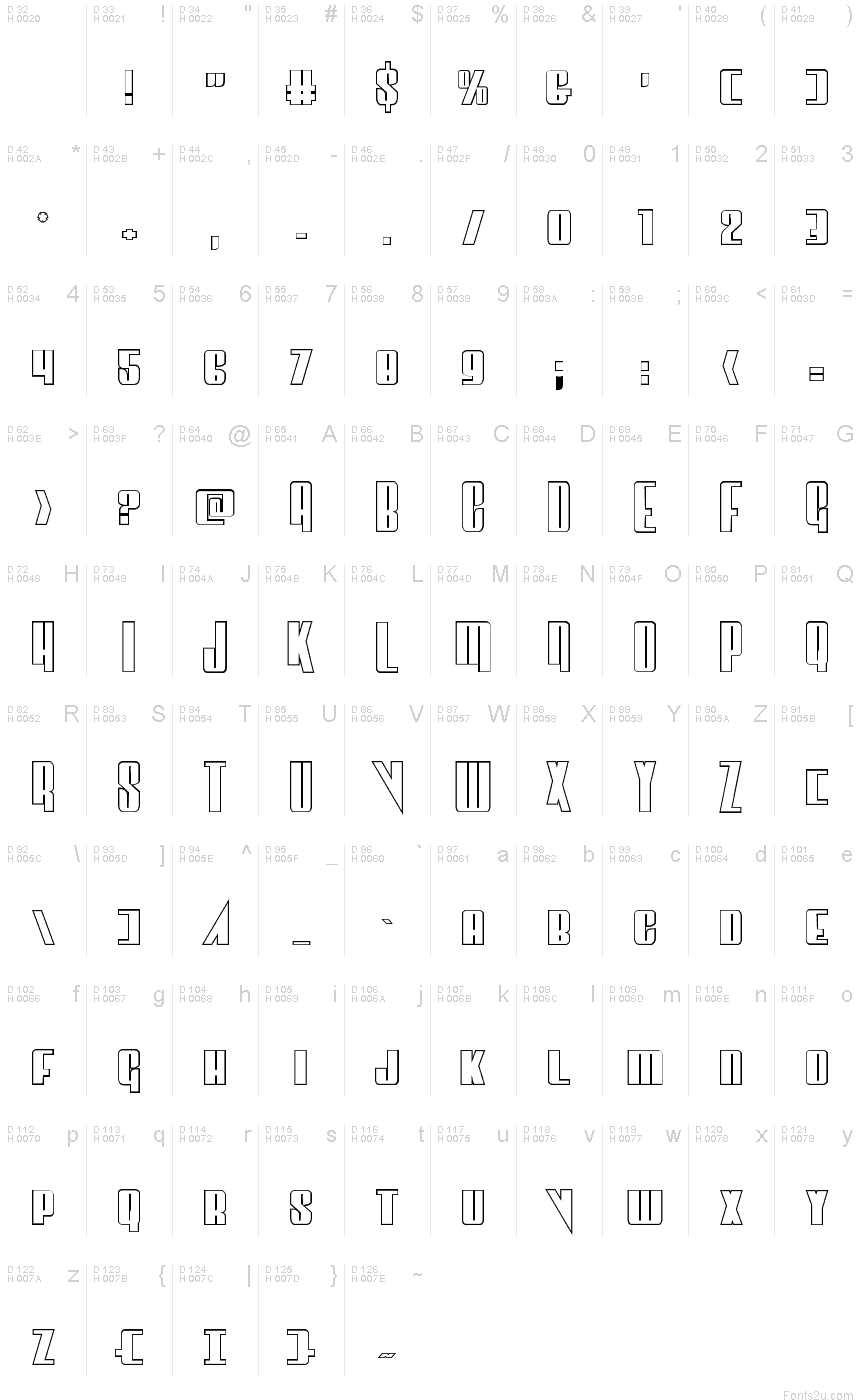
Vindicator Outline by Iconian Fonts is a free futuristic outlined display font with towering, tightly compressed capitals and an industrial silhouette. Rounded outer corners soften the otherwise severe geometry.
A science-fiction game title is its strongest setting, where the narrow forms suggest engineered signage or machinery. It also suits horror posters and action-film graphics, since the hollow strokes have a cold, skeletal edge. Album covers and esports merchandise can use the same vertical impact for aggressive, tech-driven branding.
Vindicator Outline